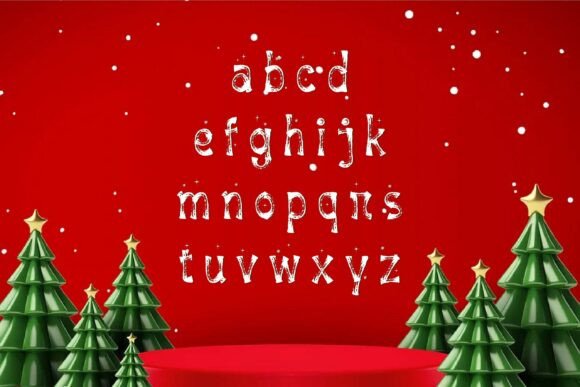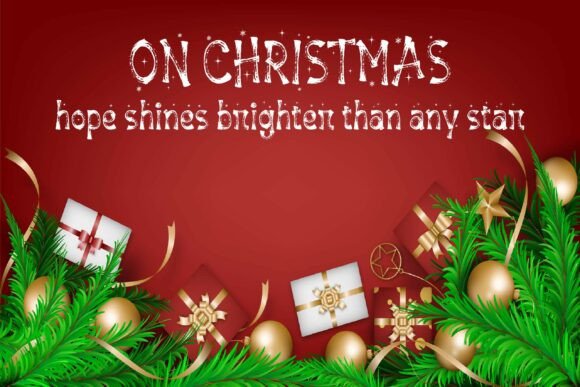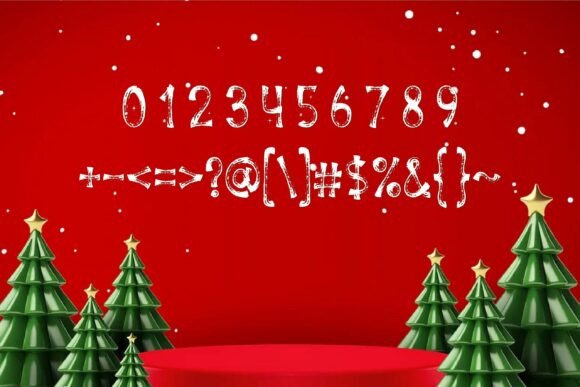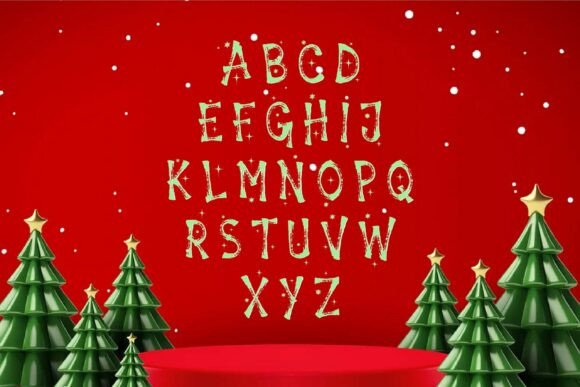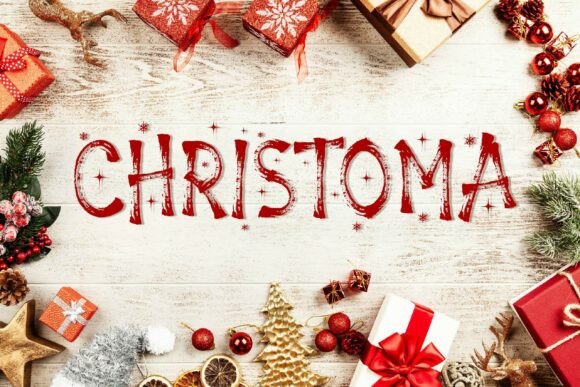
Introducing Christoma Font: A Stylish Decorative Typeface for Bold Designs
In the world of typography, fonts play a crucial role in conveying the tone and personality of a design. For designers and crafters seeking a bold and artistic visual appeal, Christoma Font is an excellent choice. This stylish decorative font features a gothic-inspired brush design that adds a touch of drama and expressiveness to any project.
What is Christoma Font?
Christoma is a decorative font that boasts a unique gothic-inspired brush design. Its bold and artistic style makes it perfect for use in various design projects, including movie titles, cartoon logos, game branding, and T-shirt artwork. With its 96 glyphs and 95 characters, Christoma provides excellent creative flexibility, allowing designers to experiment with different styles and ideas.
Key Features of Christoma Font
- Gothic-Inspired Brush Design: Christoma’s unique design is inspired by traditional gothic typography, with bold brushstrokes that give it a distinctive look.
- 96 Glyphs and 95 Characters: The font offers a wide range of characters, providing designers with plenty of creative options.
- Bold and Artistic Visual Appeal: Christoma’s design is perfect for making a statement, adding a touch of drama and expressiveness to any project.
- Ideal for Various Design Projects: From movie titles to T-shirt artwork, Christoma is a versatile font that can be used in a variety of design applications.
Use Cases for Christoma Font
Christoma’s versatility makes it suitable for a wide range of design projects. Here are some use cases where Christoma excels:
- Movie Titles: Add a touch of drama and sophistication to your movie titles with Christoma’s bold and artistic design.
- Cartoon Logos: Create eye-catching logos for cartoons, comics, or animated series with Christoma’s playful and expressive style.
- Game Branding: Use Christoma to create bold and memorable logos for games, adding a touch of personality to your brand.
- T-Shirt Artwork: Design stunning T-shirt artwork with Christoma’s unique and artistic style, perfect for making a statement.
Why Choose Christoma Font?
With so many fonts available, why choose Christoma? Here are a few reasons why Christoma stands out:
- Unique Design: Christoma’s gothic-inspired brush design sets it apart from other fonts, making it a great choice for designers seeking a distinctive look.
- High Creative Flexibility: With 96 glyphs and 95 characters, Christoma provides plenty of creative options, allowing designers to experiment with different styles.
Tips for Using Christoma Font
To get the most out of Christoma, here are some tips for using the font:
- Experiment with Different Sizes: Christoma looks great in large sizes, but it can also be used effectively in smaller sizes to add a touch of personality to your design.
- Combine with Other Fonts: Christoma pairs well with other fonts, so don’t be afraid to experiment with different combinations to create a unique look.
- Use it Sparingly: Christoma’s bold design makes it perfect for headlines or titles, but use it sparingly to avoid overwhelming your design.
In conclusion, Christoma Font is a stylish decorative typeface that offers a unique gothic-inspired brush design, perfect for designers and crafters seeking a bold and artistic visual appeal. With its 96 glyphs and 95 characters, Christoma provides excellent creative flexibility, making it a beautiful and highly useful choice for a wide range of design projects. Whether you’re designing movie titles, cartoon logos, or T-shirt artwork, Christoma is an excellent choice.